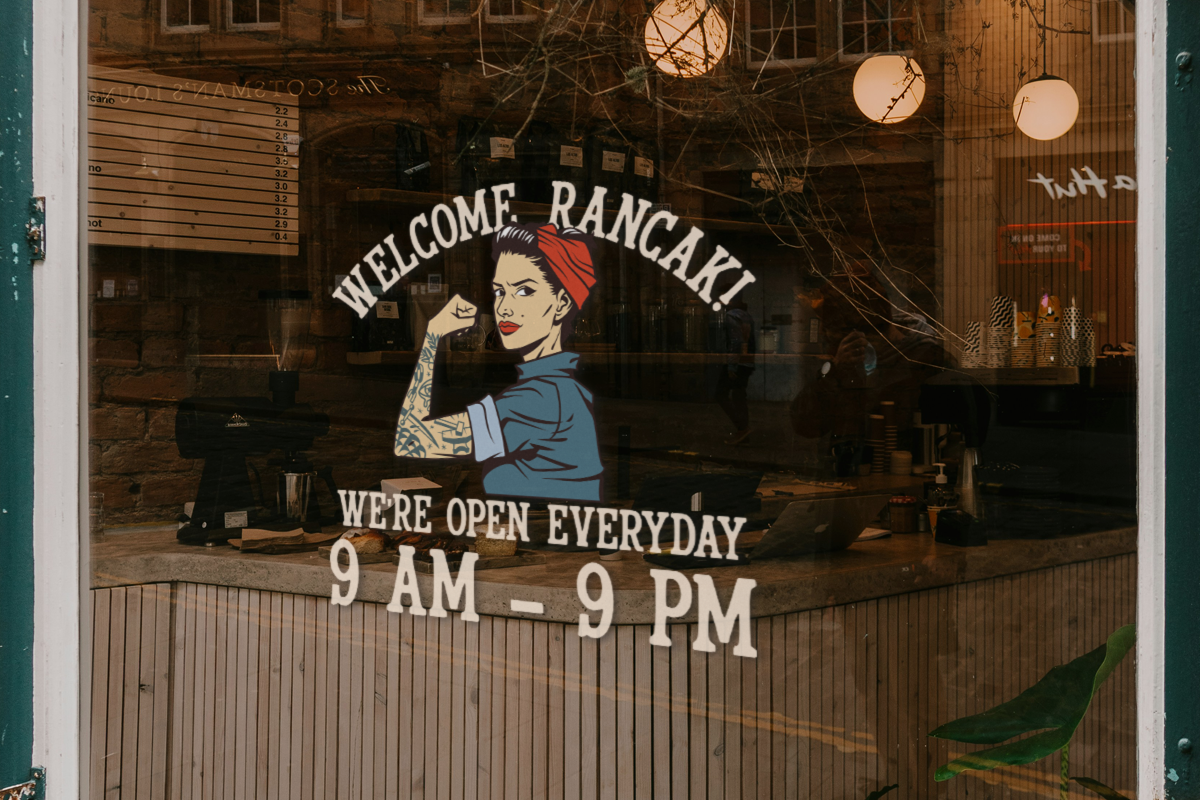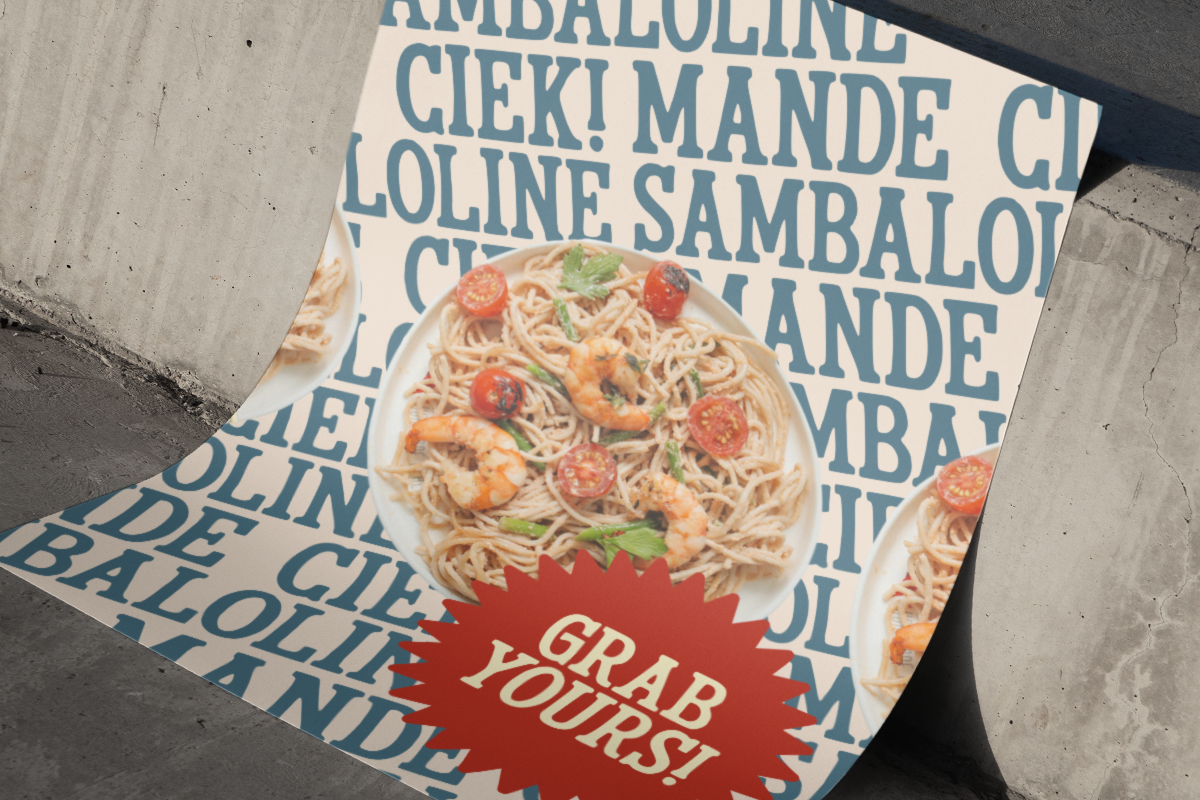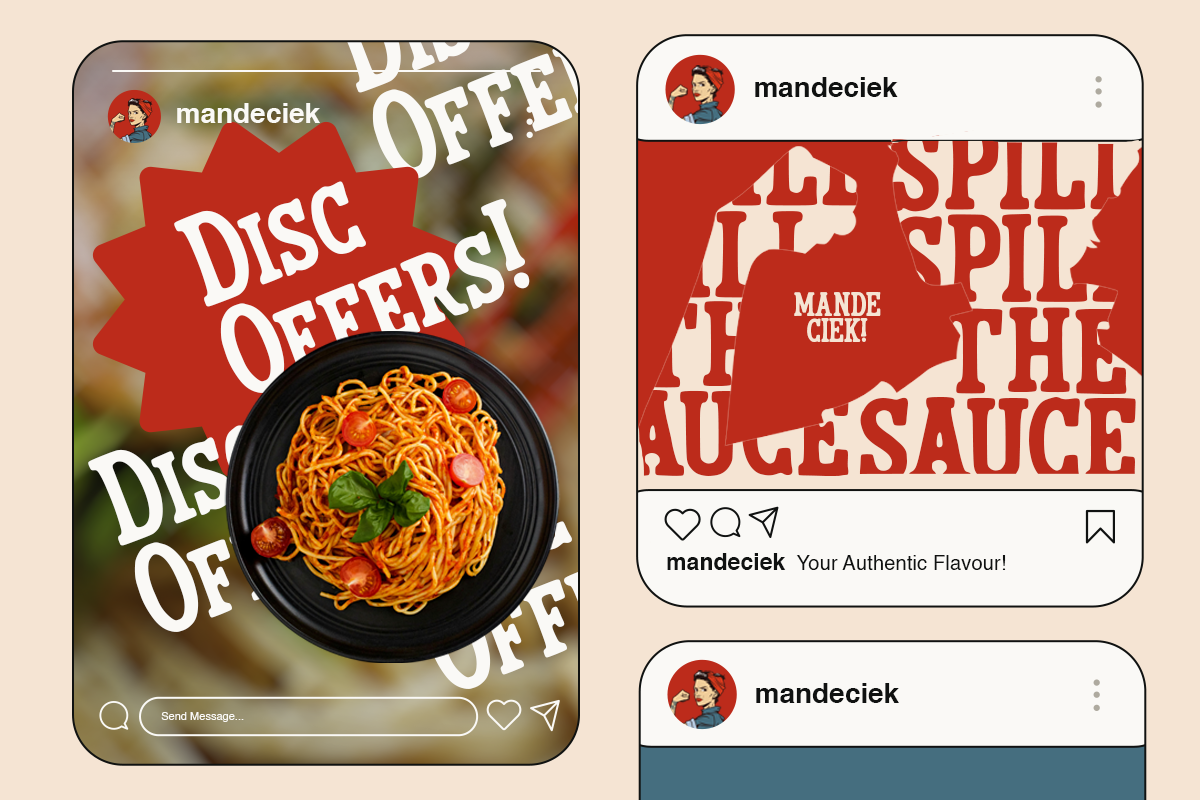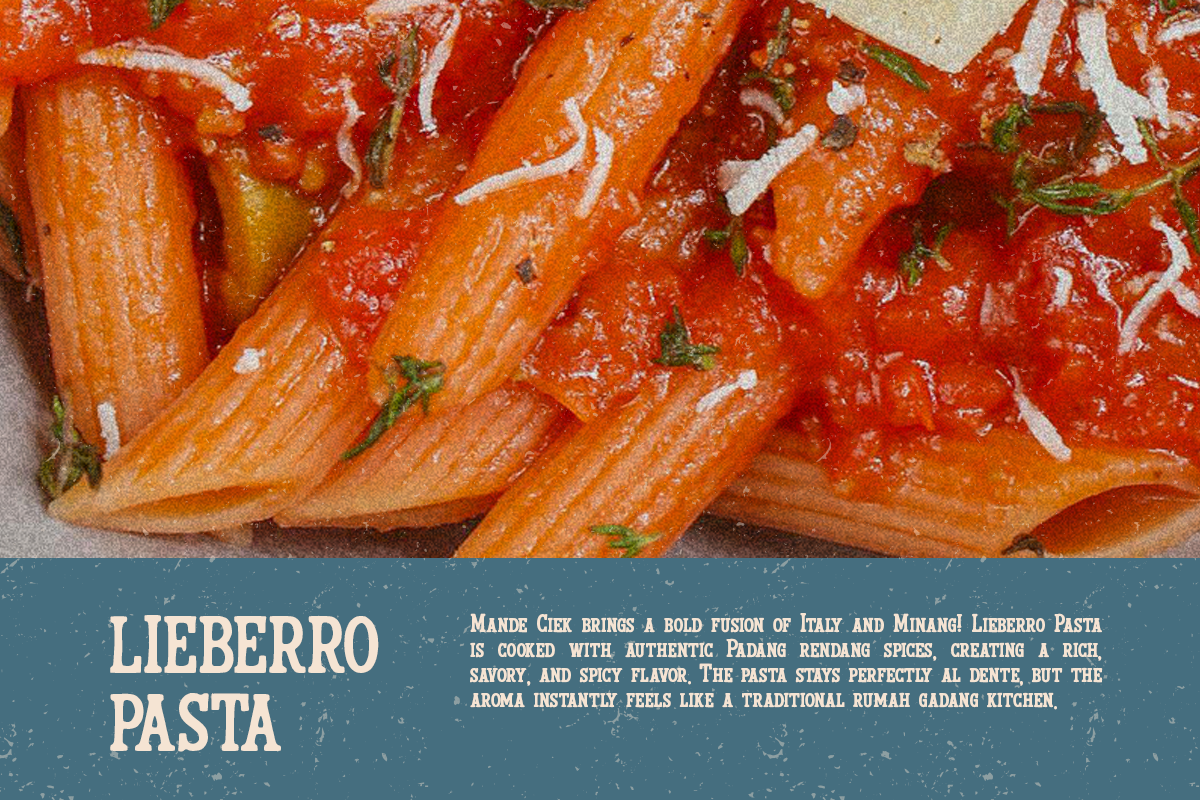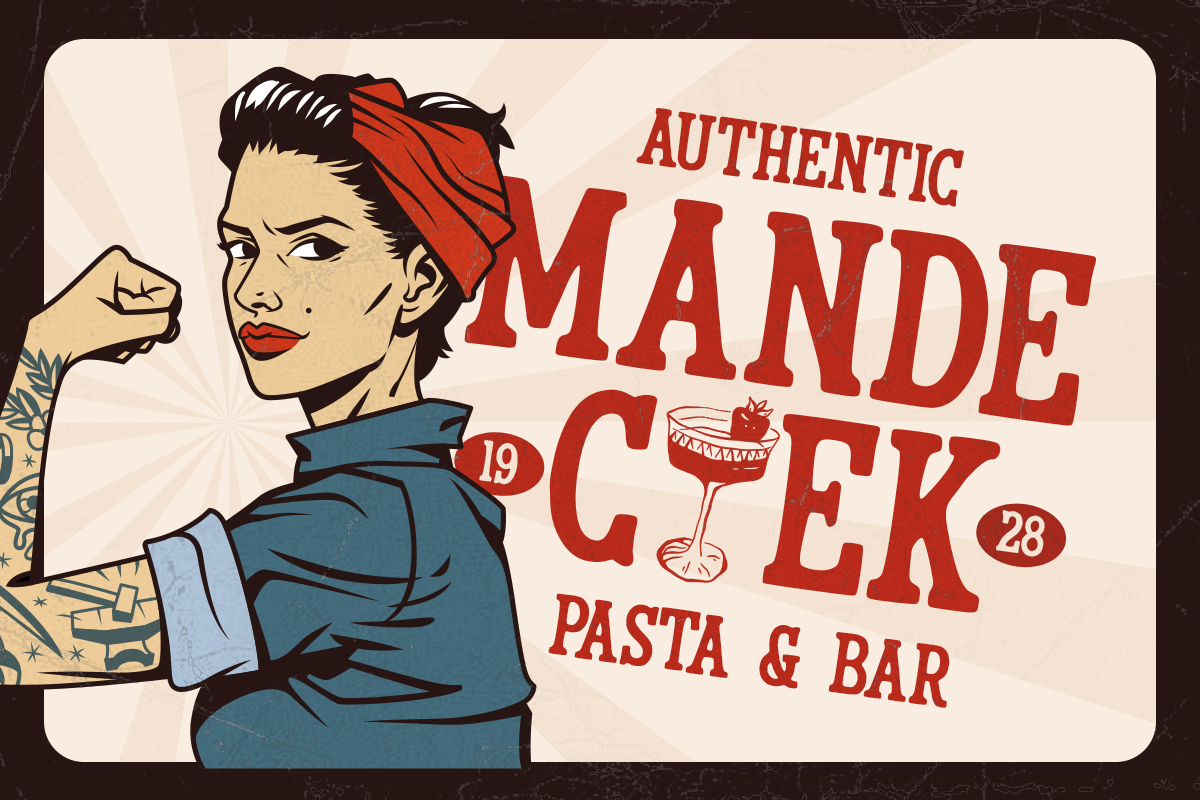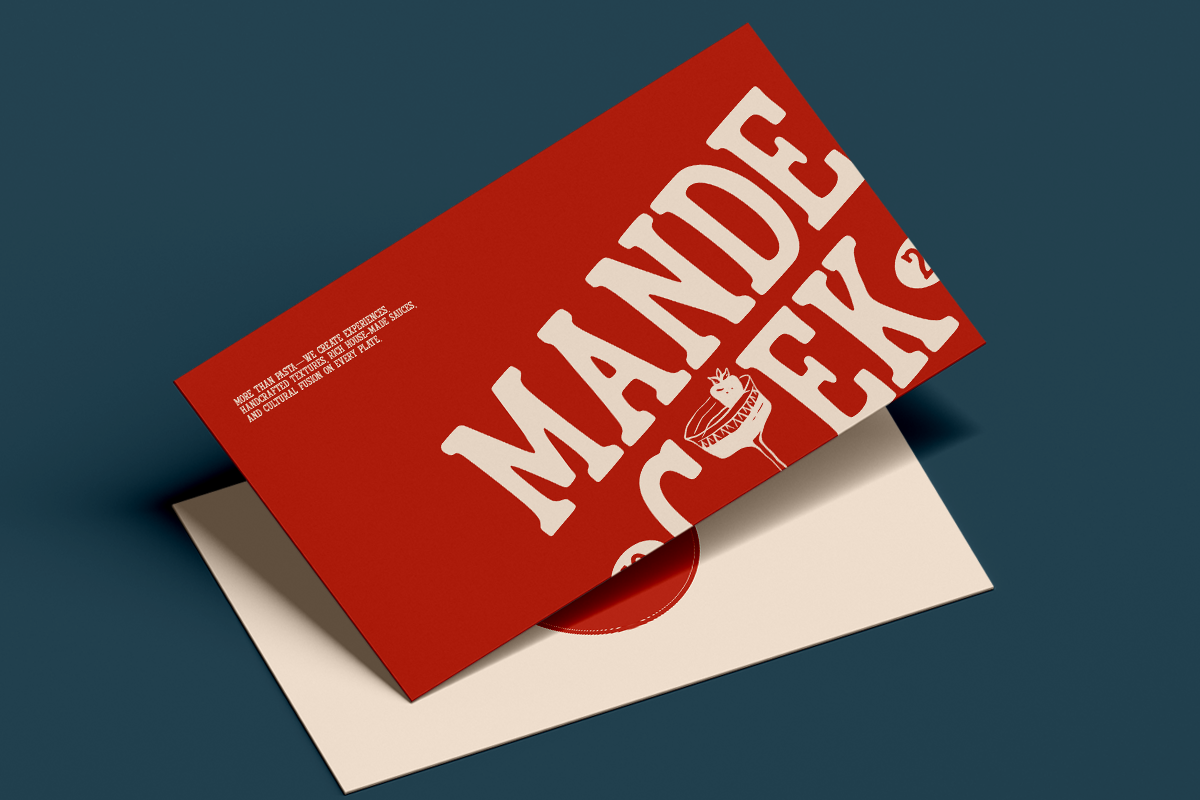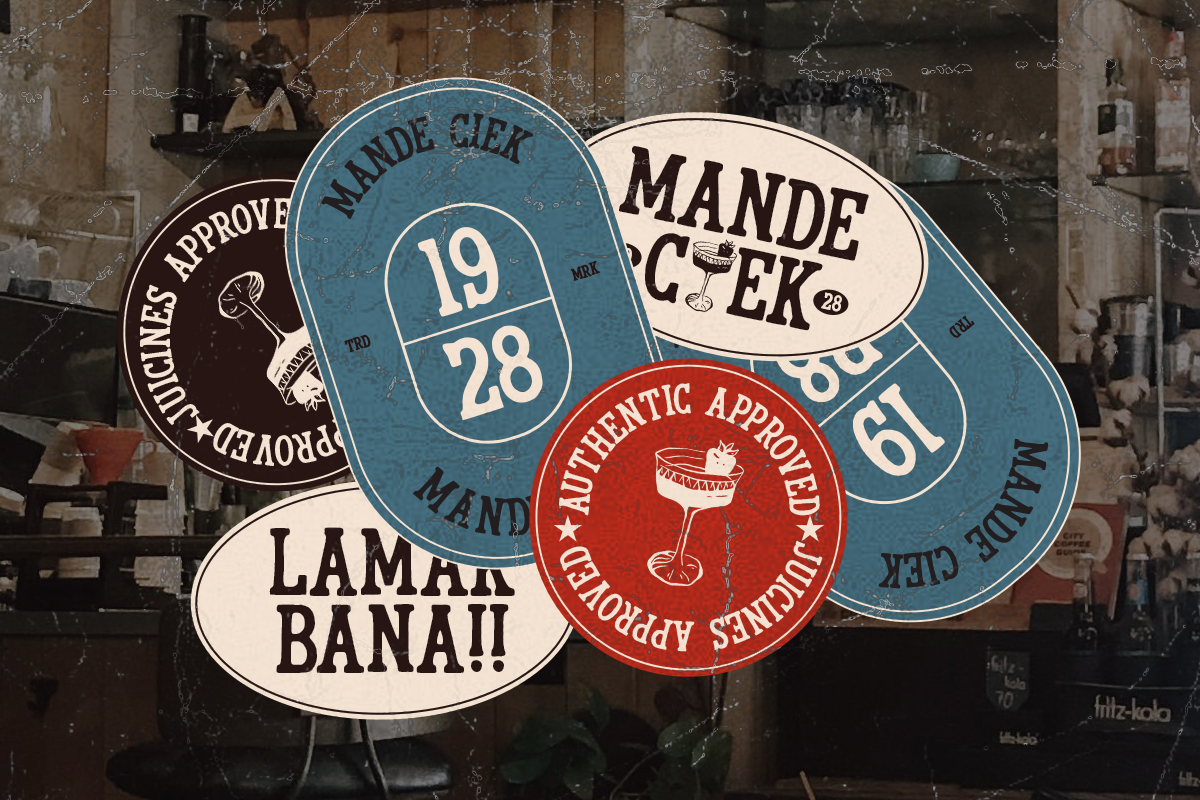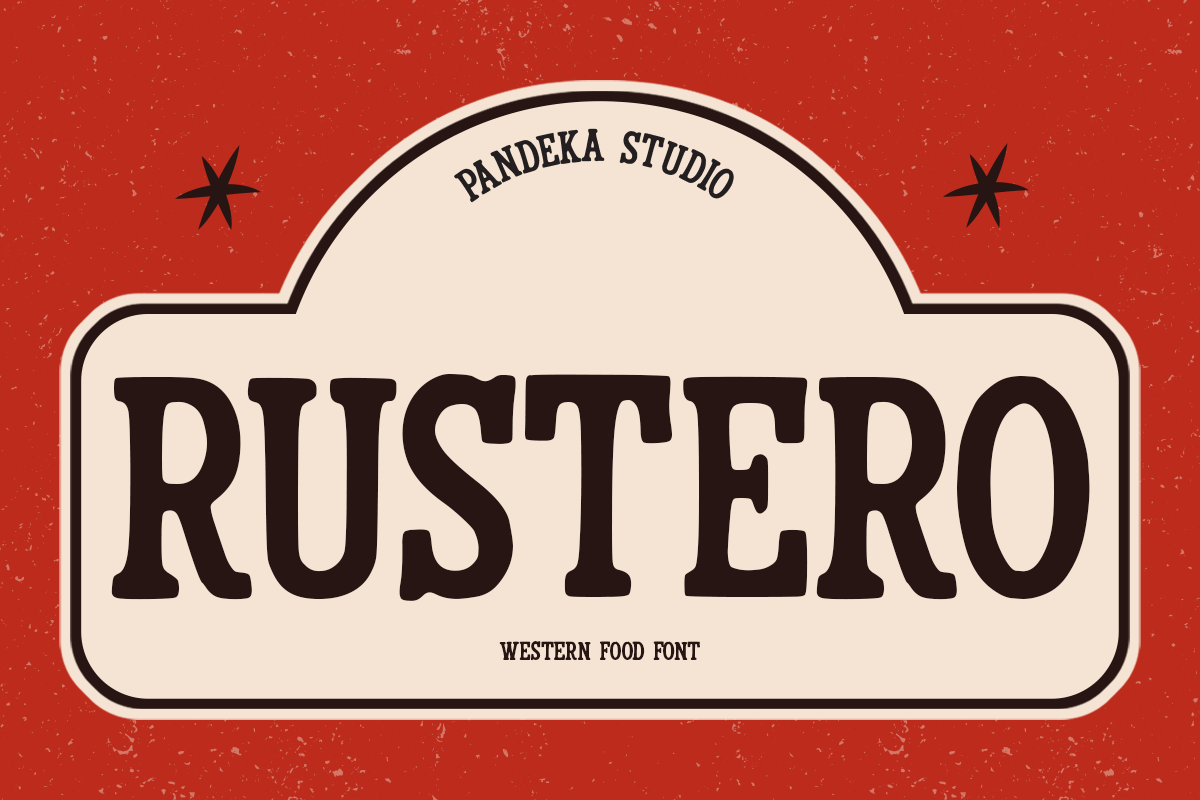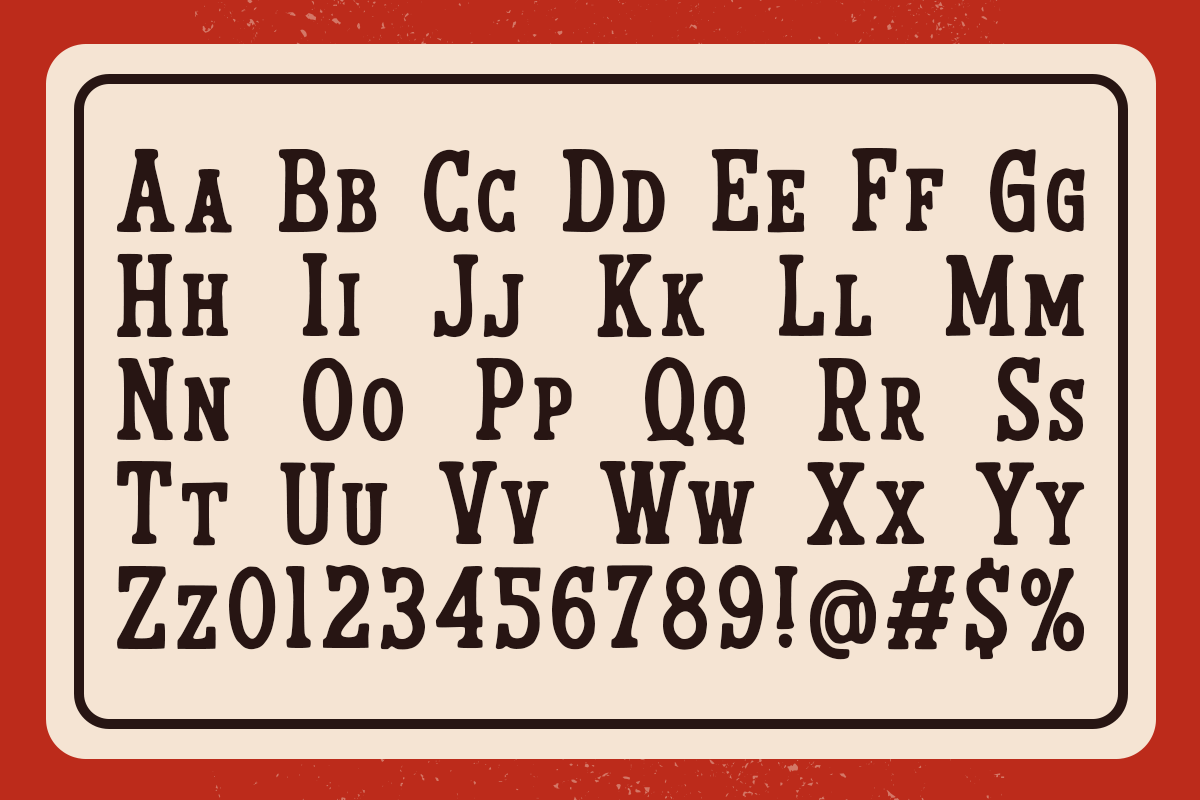
Rustero - Western Food Font
Rustero is a bold western-style typeface that captures the rugged charm of vintage diners, barbecue joints, and cowboy-inspired food brands. Its sturdy letterforms and rustic aesthetic make it a perfect fit for restaurant logos, packaging, signage, or any design that needs a touch of handcrafted authenticity.
Inspired by classic Americana and old-west poster lettering, Rustero combines warmth and grit in one cohesive look. Whether you’re designing for a steakhouse, pasta bar, or street food brand, this font delivers a delicious mix of nostalgia and bold personality.
Rustero comes in one regular style, supporting uppercase, lowercase, numbers, punctuation, and multilingual characters, making it ideal for both branding and display projects.
- 1 Style: Regular
- Full Character Set: Uppercase, lowercase, numbers, symbols, and punctuation